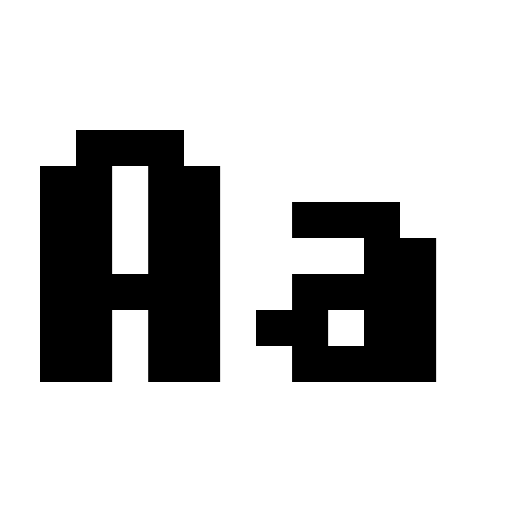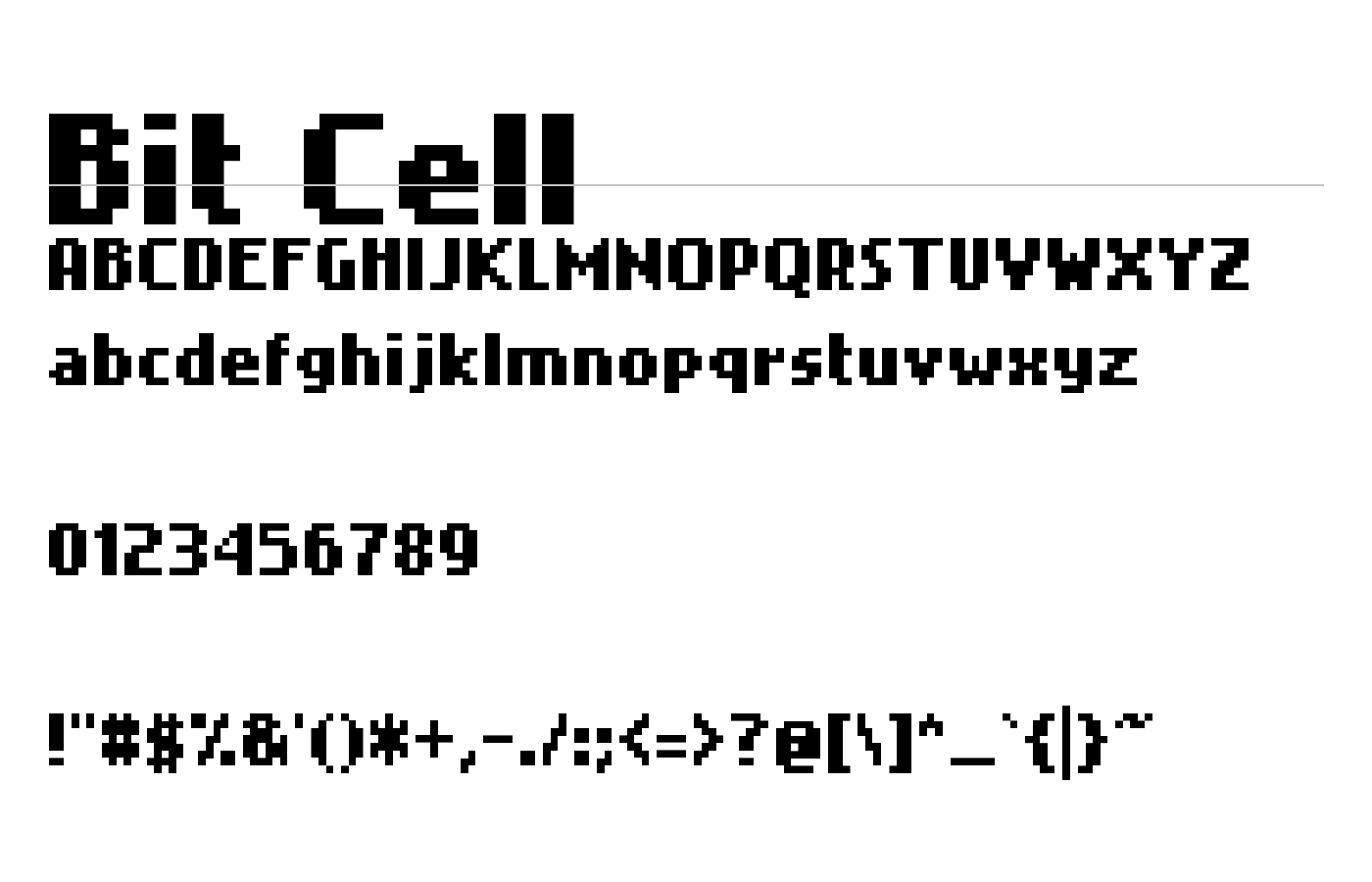
Bit Cell is a pixelated, monospaced sans serif font with a retro digital aesthetic reminiscent of early computer and video game typography. Its blocky, uniform stroke weight and squared letterforms create a techy, nostalgic feel that works great for gaming, tech branding, or digital-themed projects where a vintage computer vibe is desired. This font excels in headlines, logos, and on-screen displays where clear, bold readability with a playful yet technical character is needed.
Bit Cell Font
About Bit Cell Font